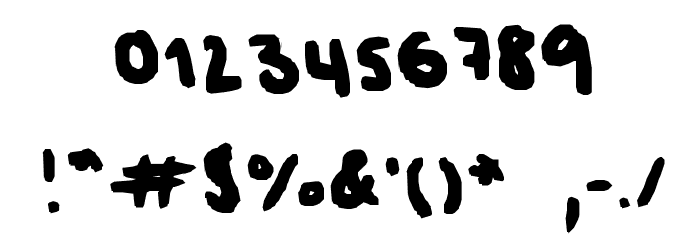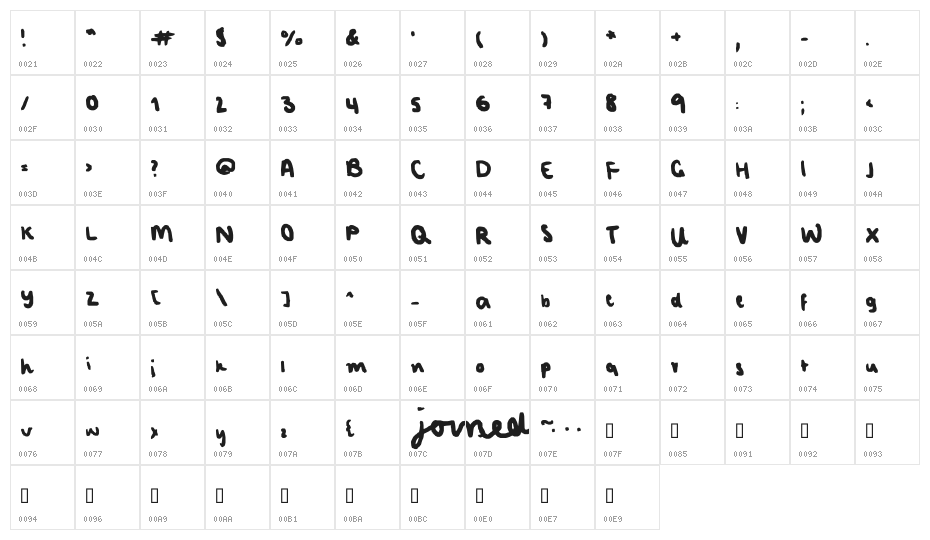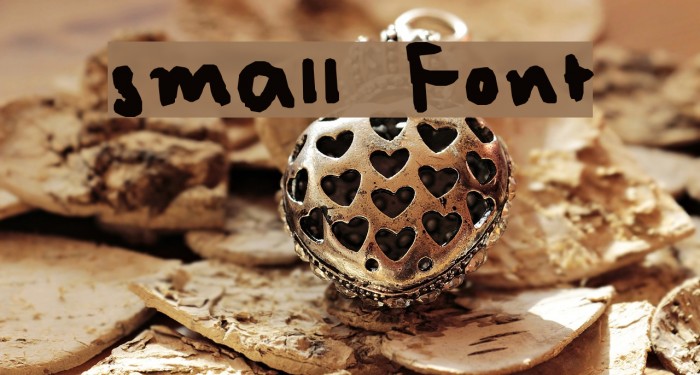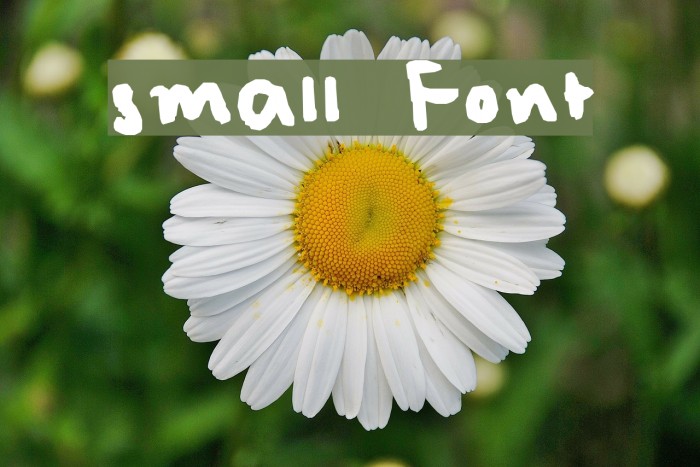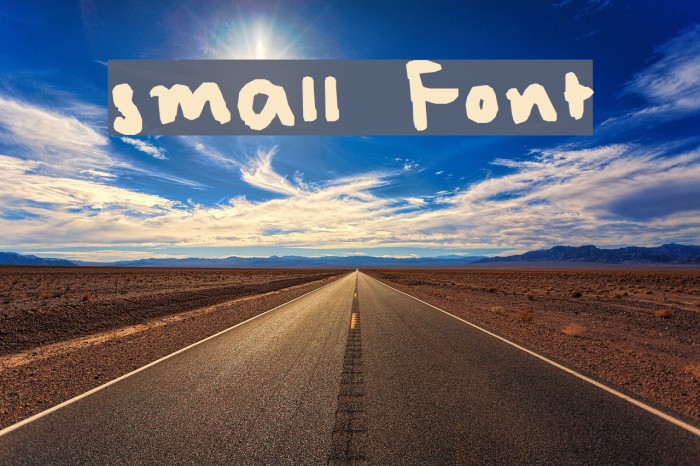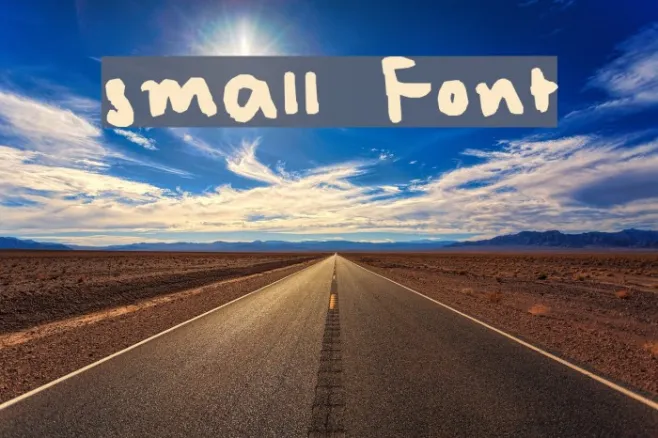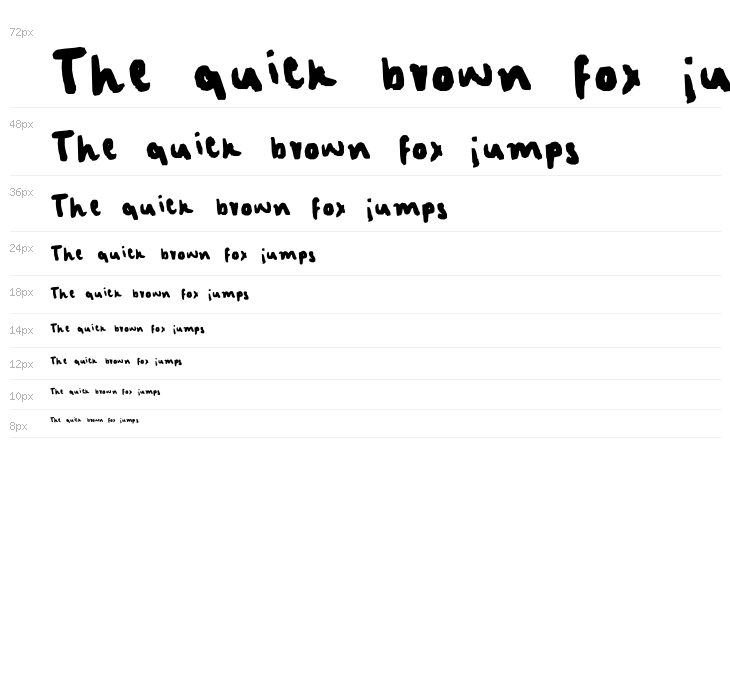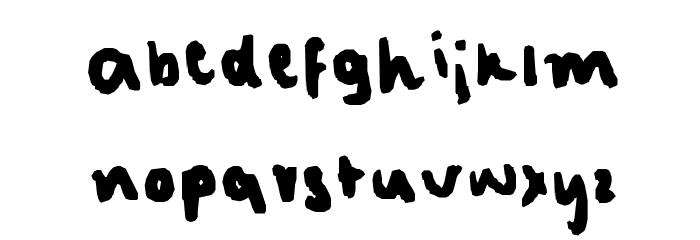
small Font
small Description
This font exhibits a playful and informal handwritten style, characterized by its bold and uneven strokes. The letters have a casual, organic feel, with varying thickness that adds to its charm. The uppercase and lowercase letters maintain a consistent style, while the numerals and special characters complement the overall aesthetic. The font's irregularity and boldness make it stand out, providing a unique and approachable look.
| Proposed Projects | Ideal for children's books, casual invitations, greeting cards, and playful branding projects. |